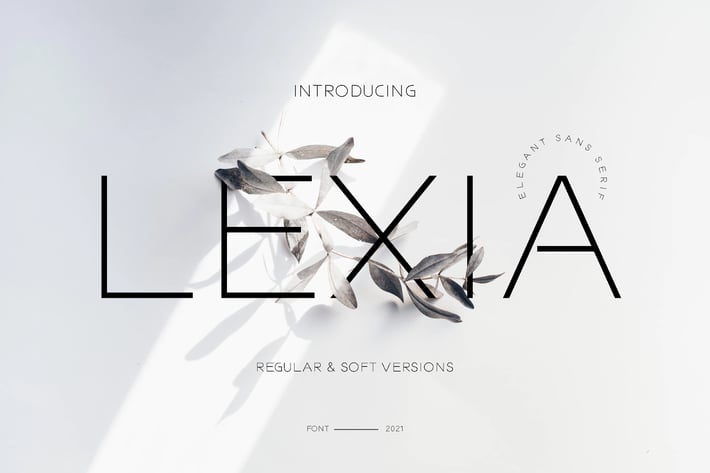
Lexia Business Advertisement Font
Lexia is a minimal and neat sans serif font. It can easily be matched to an incredibly large set of projects, so add it to your creative ideas and notice how it makes them stand out!
- Multilingual Support : ÀÁÂÃÄÅÇÐÈÉÊËÌÍÎÏÑØÒÓÔÕÖÙÜÚÛÝŸỲŸÆŒßÞþ